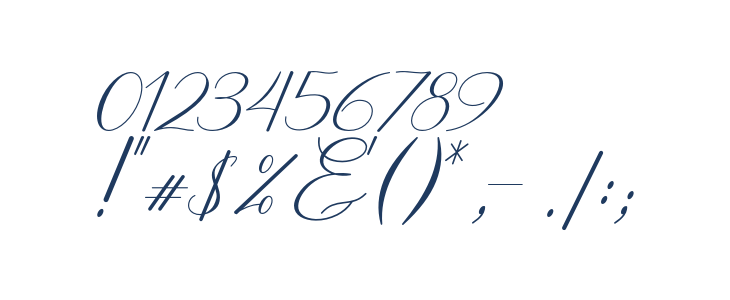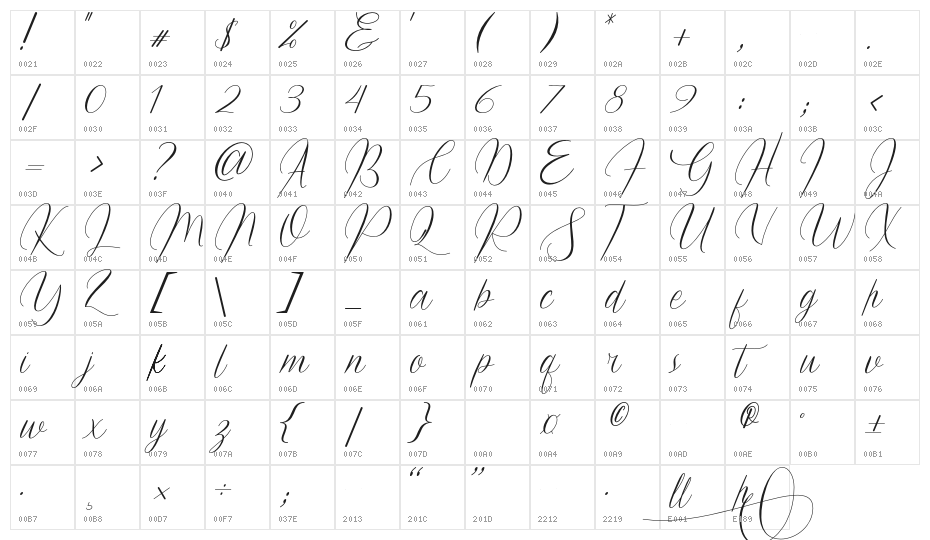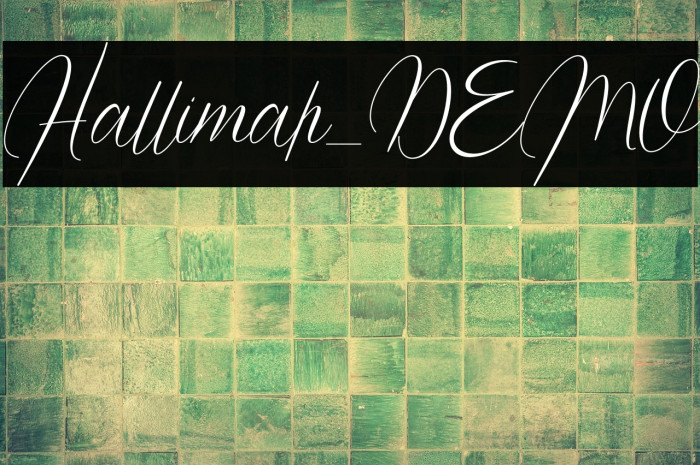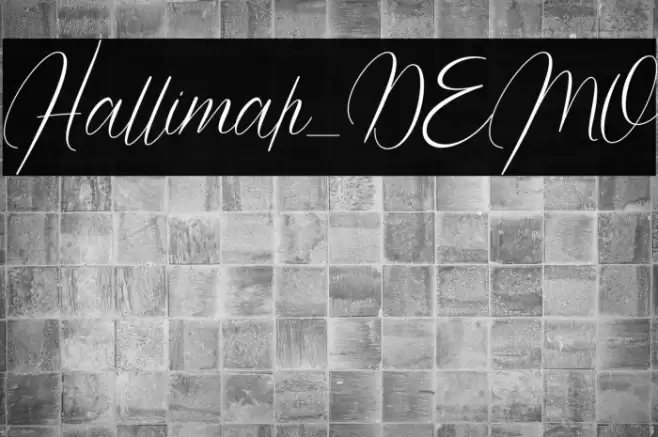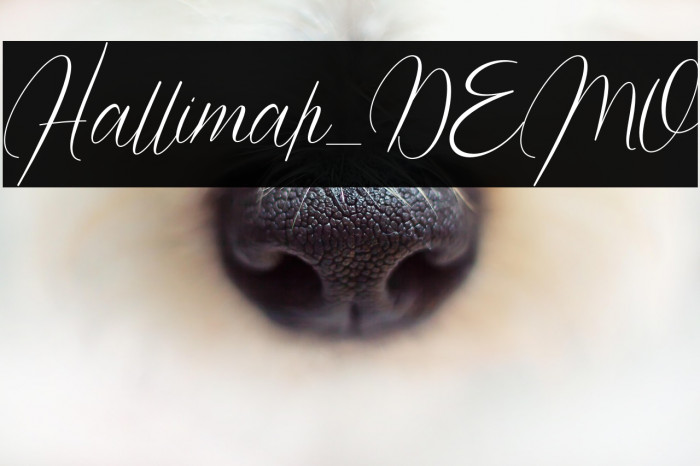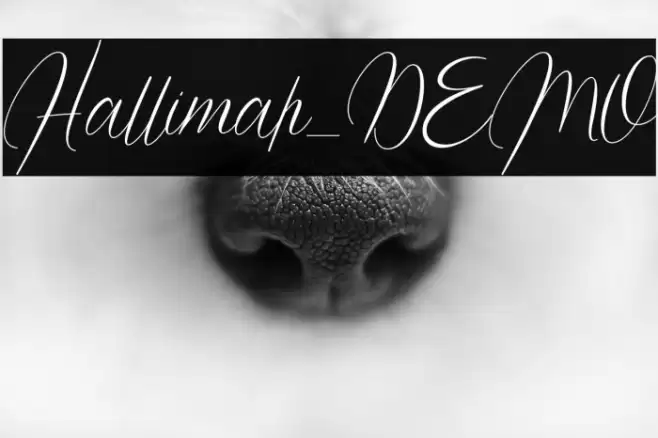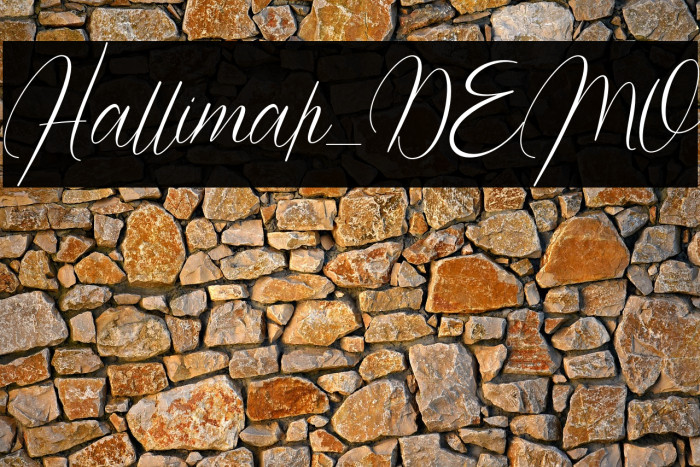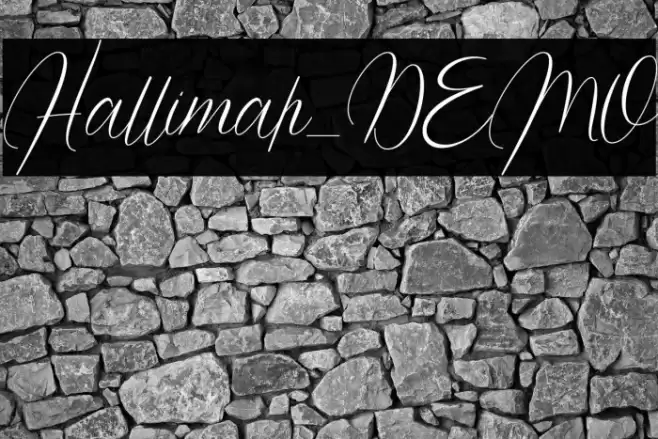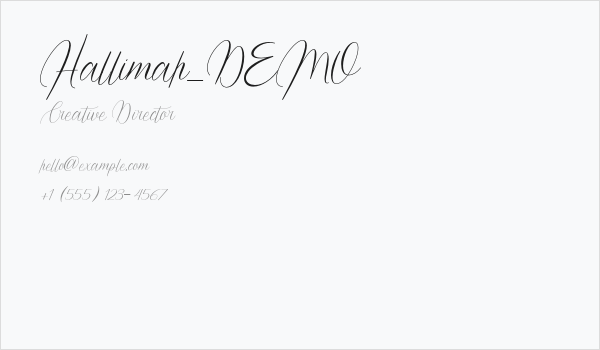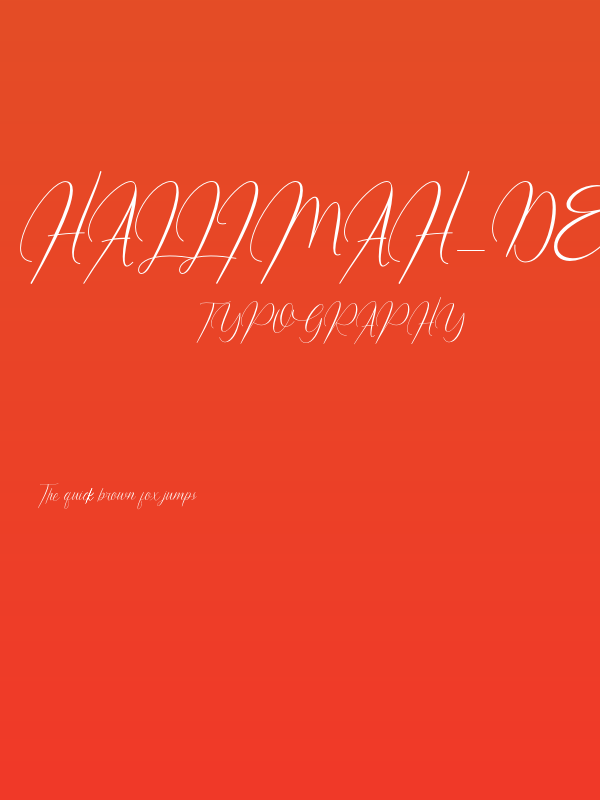
Hallimah_DEMO Font
Hallimah_DEMO Description
This elegant script font features a flowing, cursive style with a sophisticated and graceful appearance. The characters are connected, creating a seamless and fluid look that is both stylish and refined. The uppercase letters are tall and slender, while the lowercase letters maintain a consistent flow with delicate curves and loops. The numerals are designed to match the overall aesthetic, with a slight slant and elegant curves. Special characters are included, maintaining the same fluidity and elegance. This font is perfect for projects that require a touch of class and sophistication.
| Proposed Projects | Ideal for wedding invitations, elegant branding, personal signatures, and high-end product packaging. |